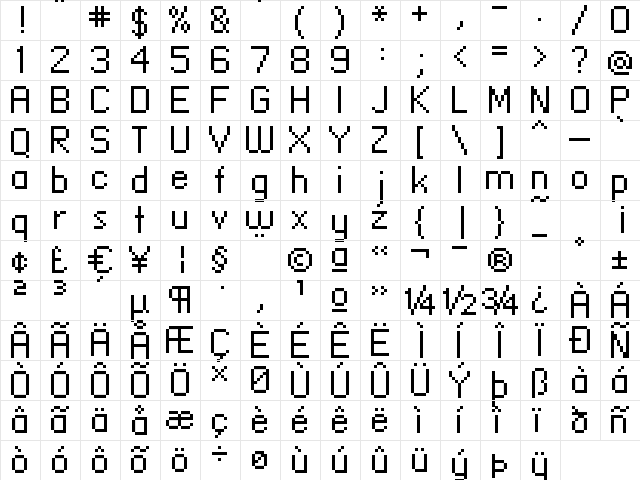
standard 09_56 Regular
Design Context for standard 09_56 Typeface
standard 09_56 is a composed and adaptable typeface that performs quietly and consistently across a wide range of design contexts.